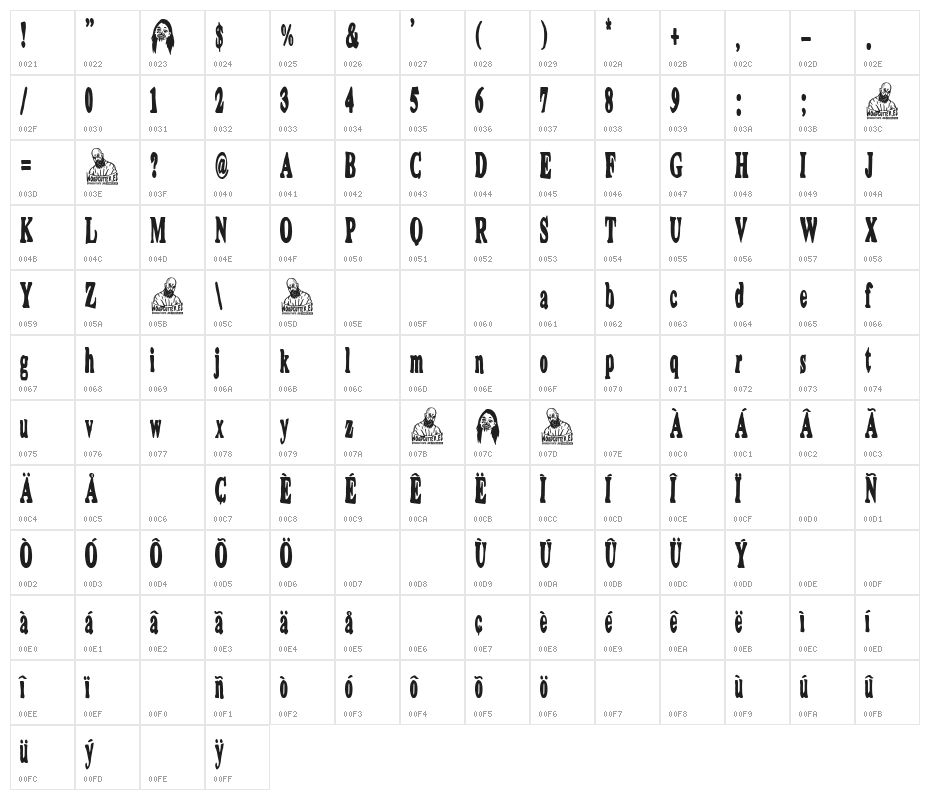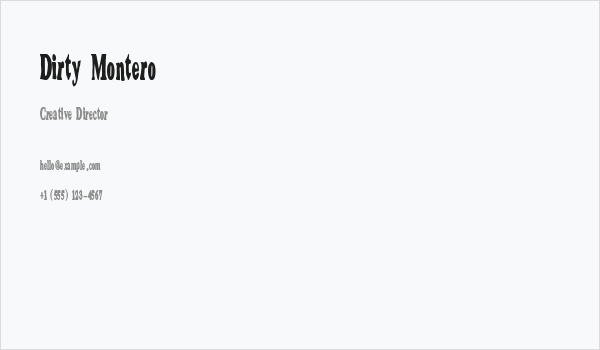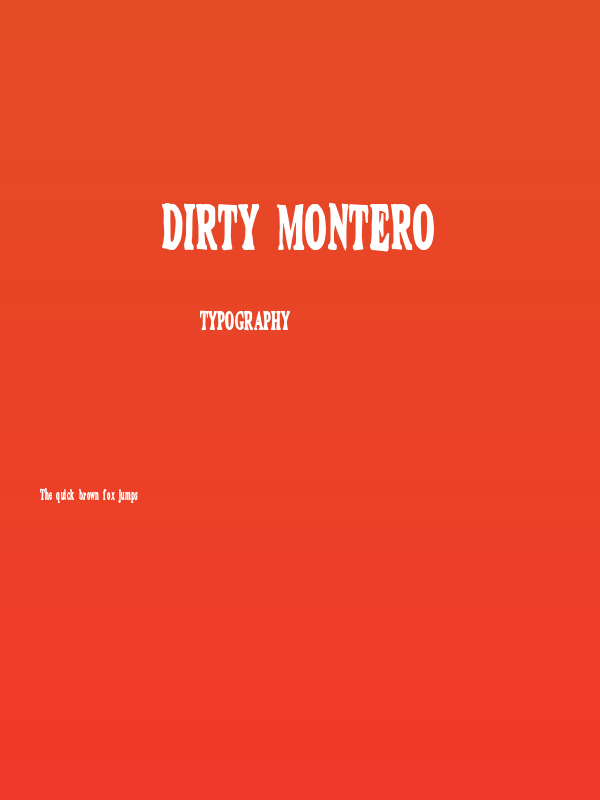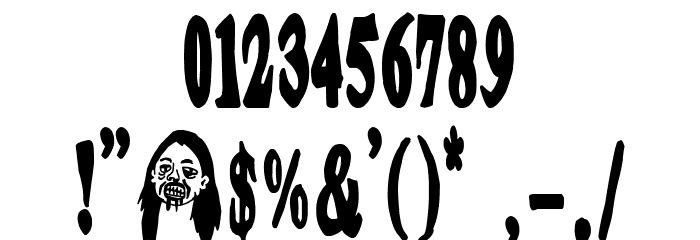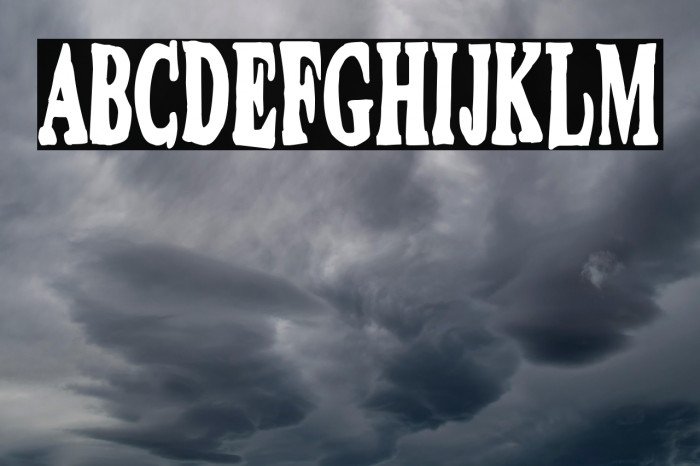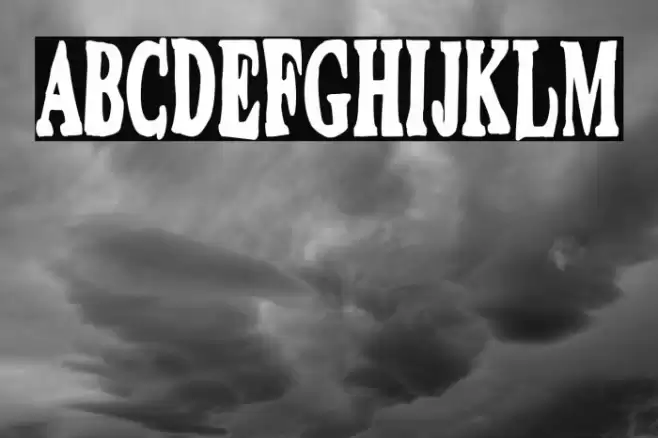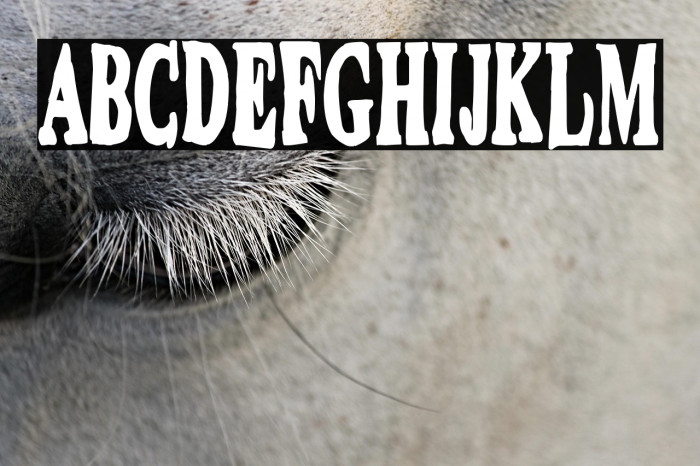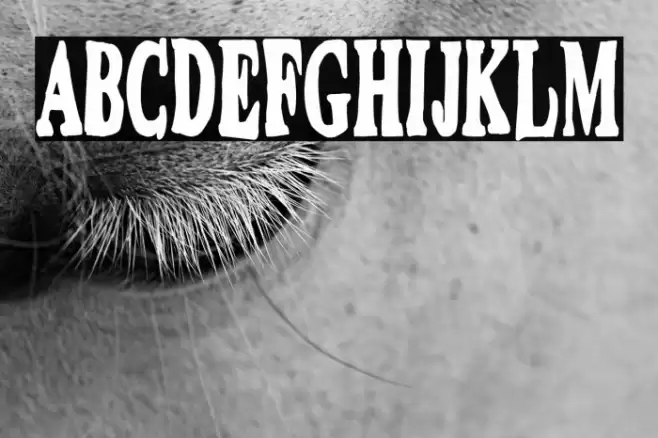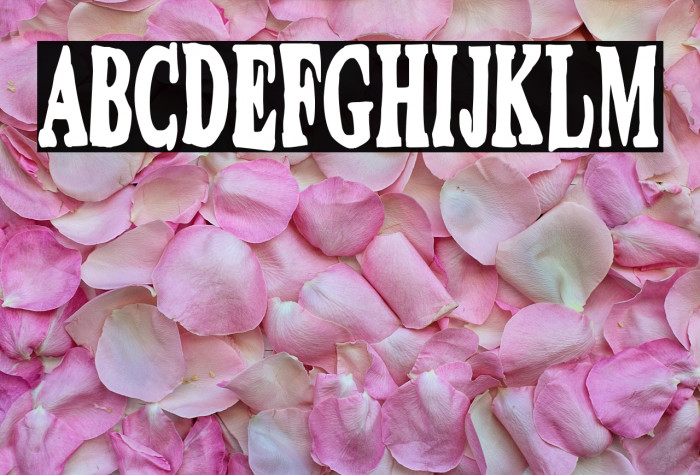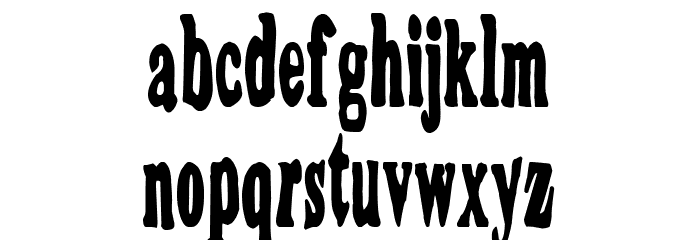
Dirty Montero Font
| Gesamtstil | Vintage |
| Vorgeschlagene Projekte | Ideal for posters, album covers, branding, and any creative projects that require a bold, vintage touch. |